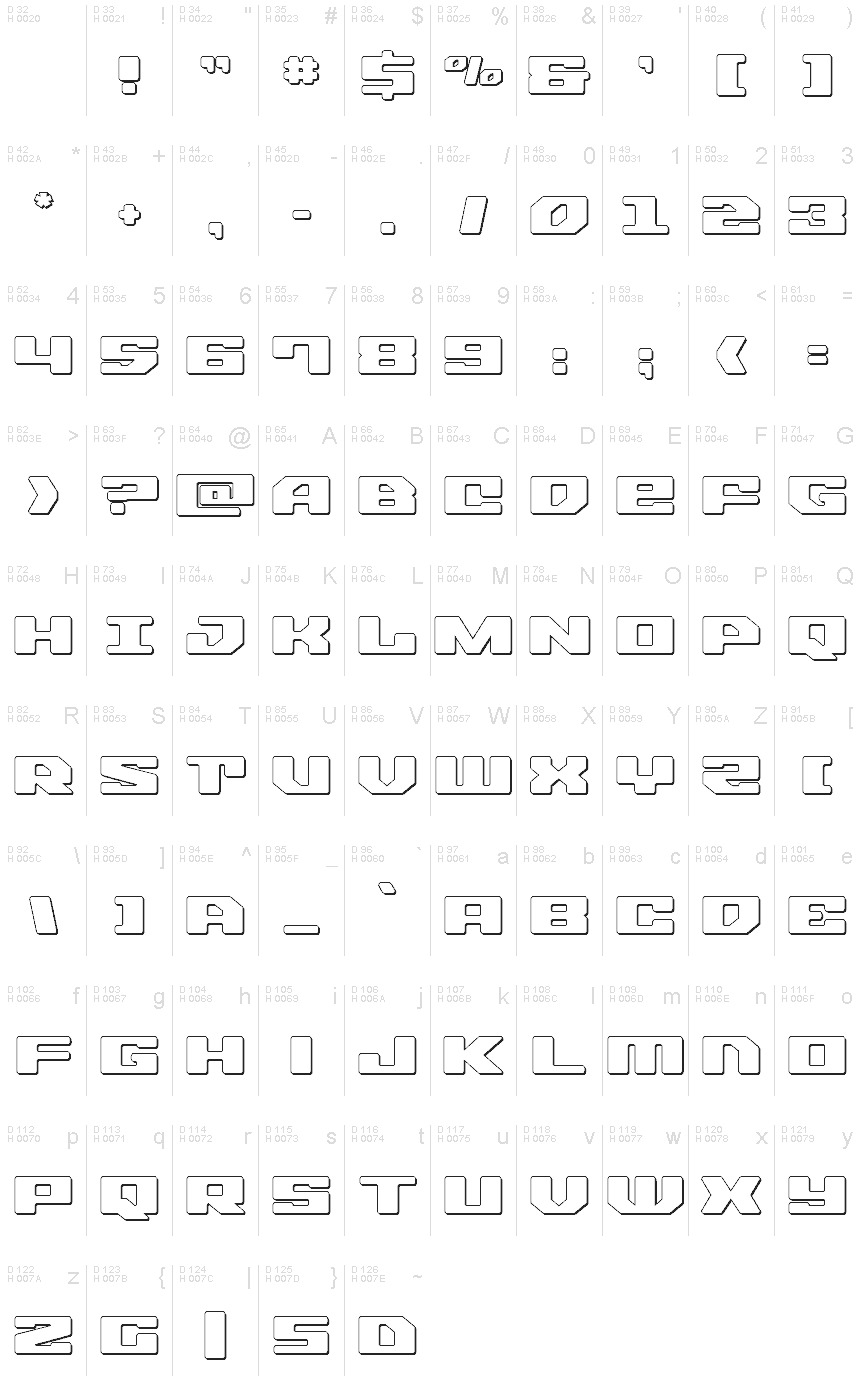
Fawkes Outline
Fawkes Outline font by Iconian Fonts is a brilliant display font with techno style, expanded width and bold weight. It showcases modernity, thoughtful design, geometric shapes and an impactful appearance whenever used. As an outline font, it has transparent insides making it suitable for displays of larger dimensions most likely when headings are requested.
Use Fawkes on a billboard advertising campaign or noticeable branding projects like logos and posters. Include this stunning tool in product packaging designs, video title intros, movie covers and game interface designs. Artists can employ the absolutely free outlined typeface in apparels like t-shirts or cap designs too!